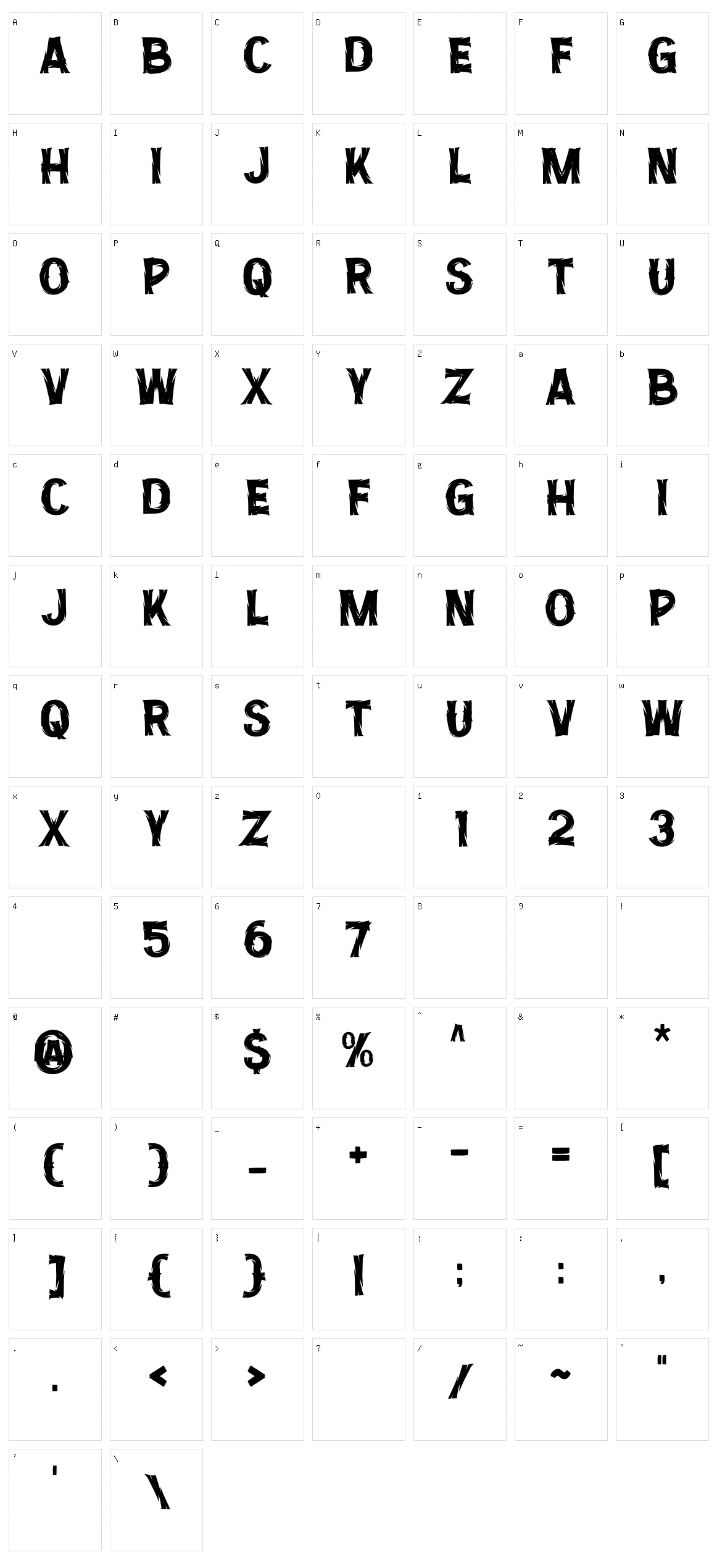
The free font Night Rumble is carefully designed by Gassstype, showcasing a thoughtful balance of creativity and usability and falls under the Halloween font style. When you download the ZIP file, it contains only 840.96 KB of font files, making it lightweight and quick to download. Please review the license details below to understand permitted usage and distribution rights. If license information is not available, we recommend using this font for personal projects only or contacting the author directly for commercial usage permissions.